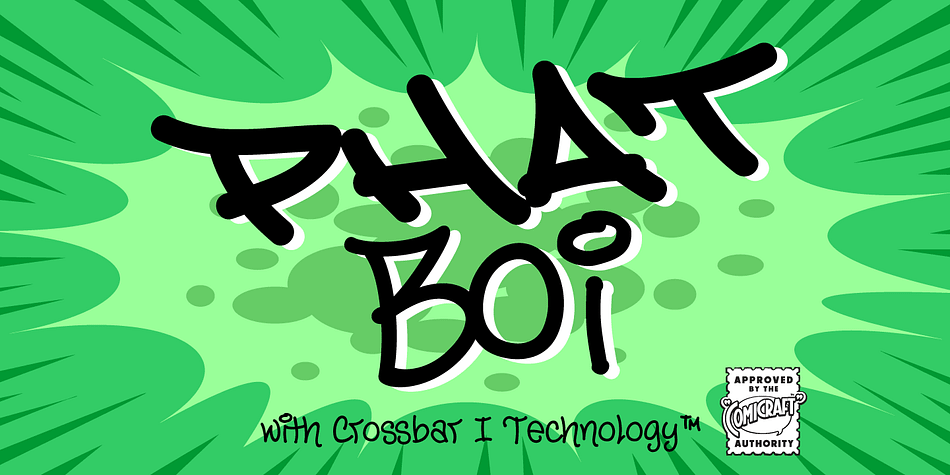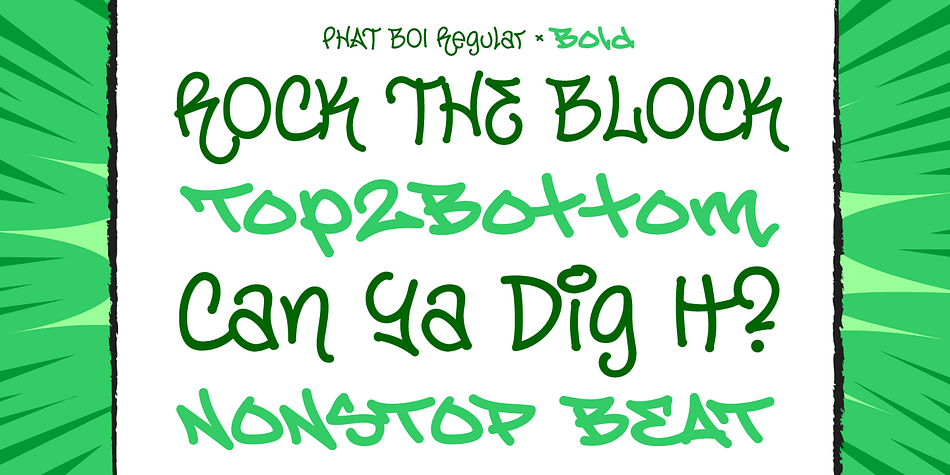
Designed by John Roshell, Phat Boi is a hand display font family. This typeface has two styles and was published by Comicraft.
Word up! DJ Dongboi and triple threat “JG” Roshell has been bustin’ out for all the young font gunnahs out there. He bein’ crazy, givin’ out the love and non-stop dope moves… You feel it? Be showin’ ya respect and holla at the Phat Boi an’ y’all be cool. Aiiiigggghhht?! Phatboi is Da Next Big Thang! Stay bent.